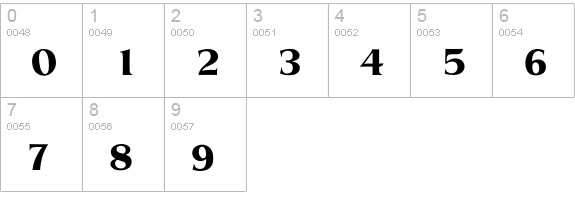
PriscillaBold Font Details
PriscillaBold font is a striking and elegant typeface that exudes sophistication and class. With its bold and distinct letterforms, PriscillaBold is perfect for creating impactful designs that demand attention. The strong and commanding presence of this font makes it ideal for headlines, logos, and branding projects. What sets PriscillaBold apart is not only its flawless design but also its accessibility. This premium font is available for free download at FontsMarket.com, making it easily accessible to designers and creators looking to elevate their work with a touch of luxury and style. Whether you're working on a print project, web design, or any other creative endeavor, PriscillaBold is sure to make a lasting impression with its timeless appeal and versatility. Download PriscillaBold today and add a touch of boldness to your designs.